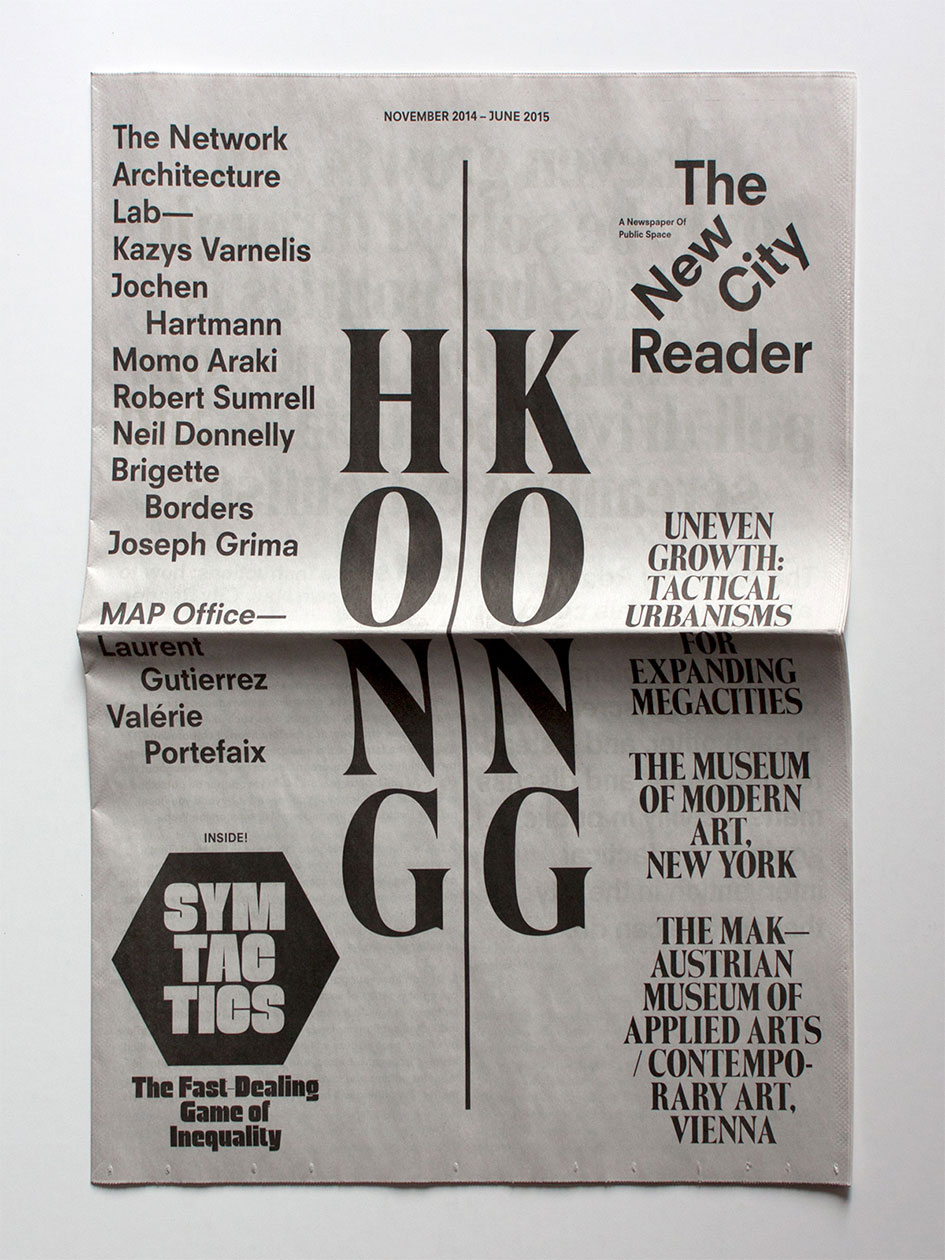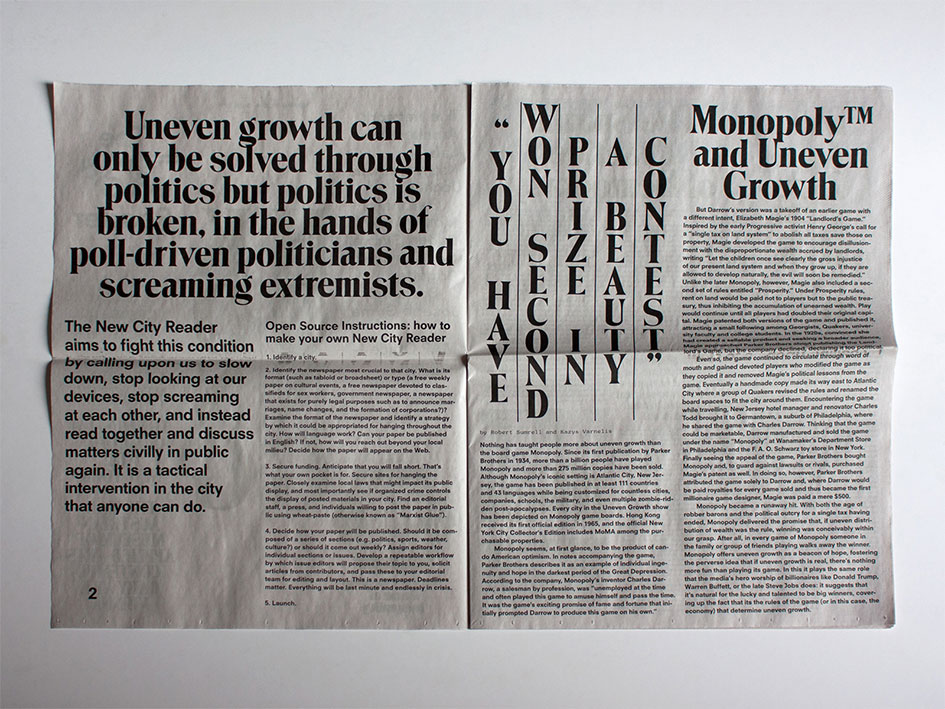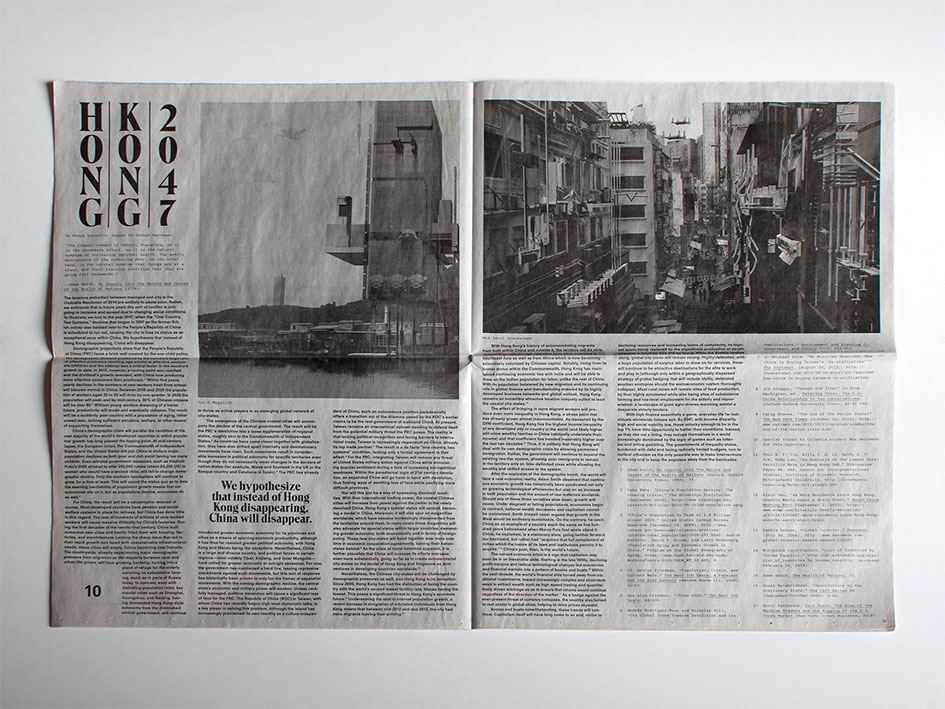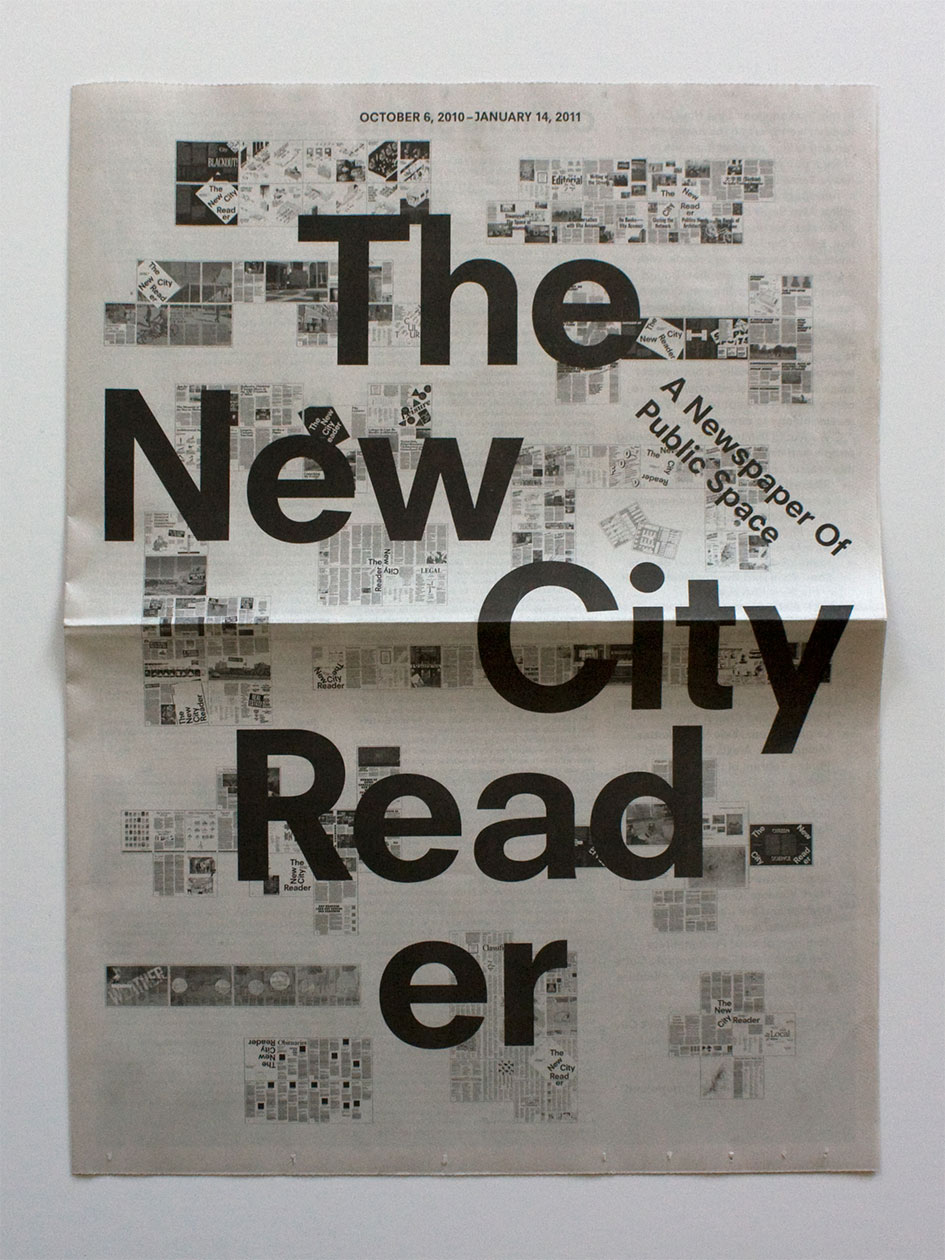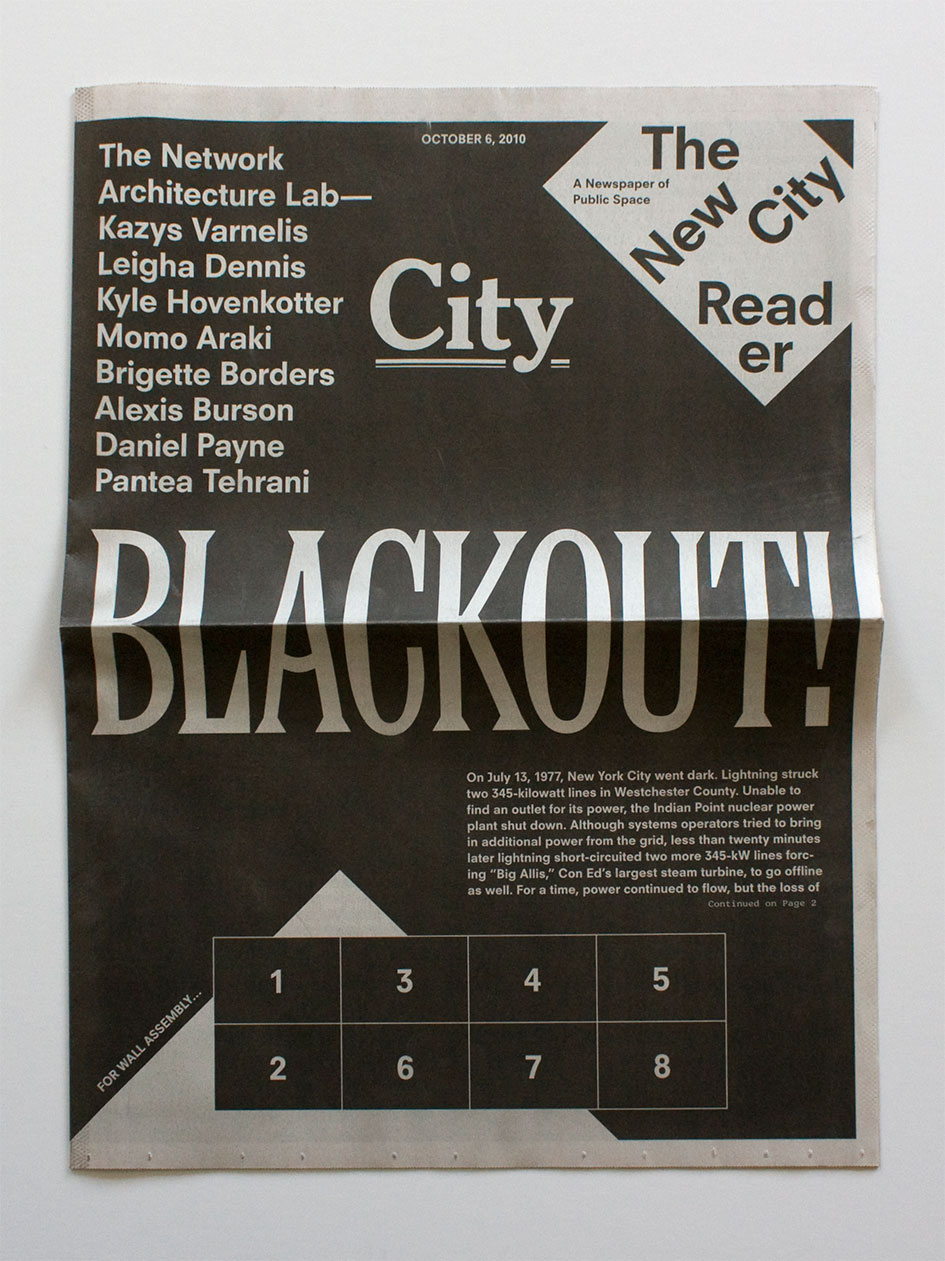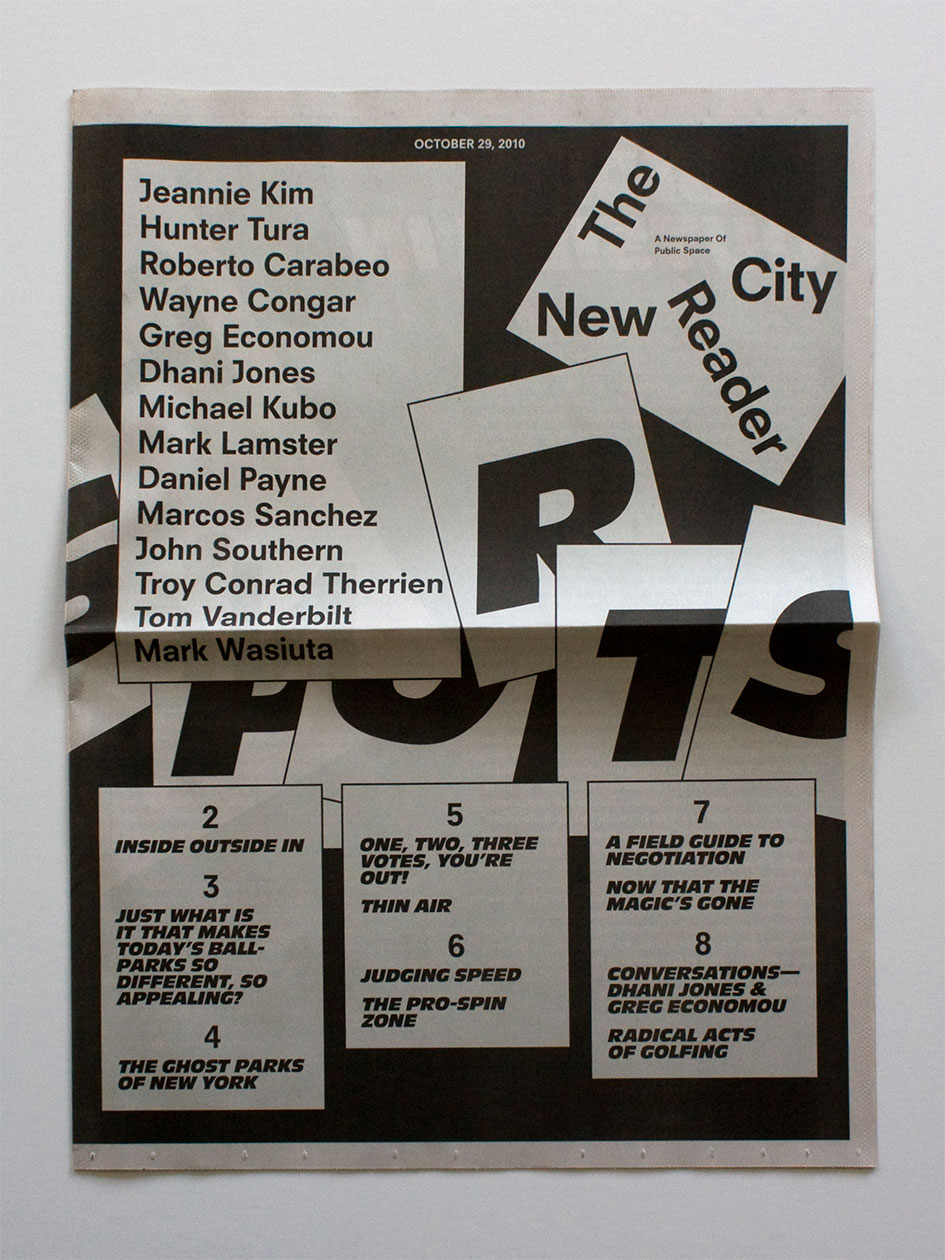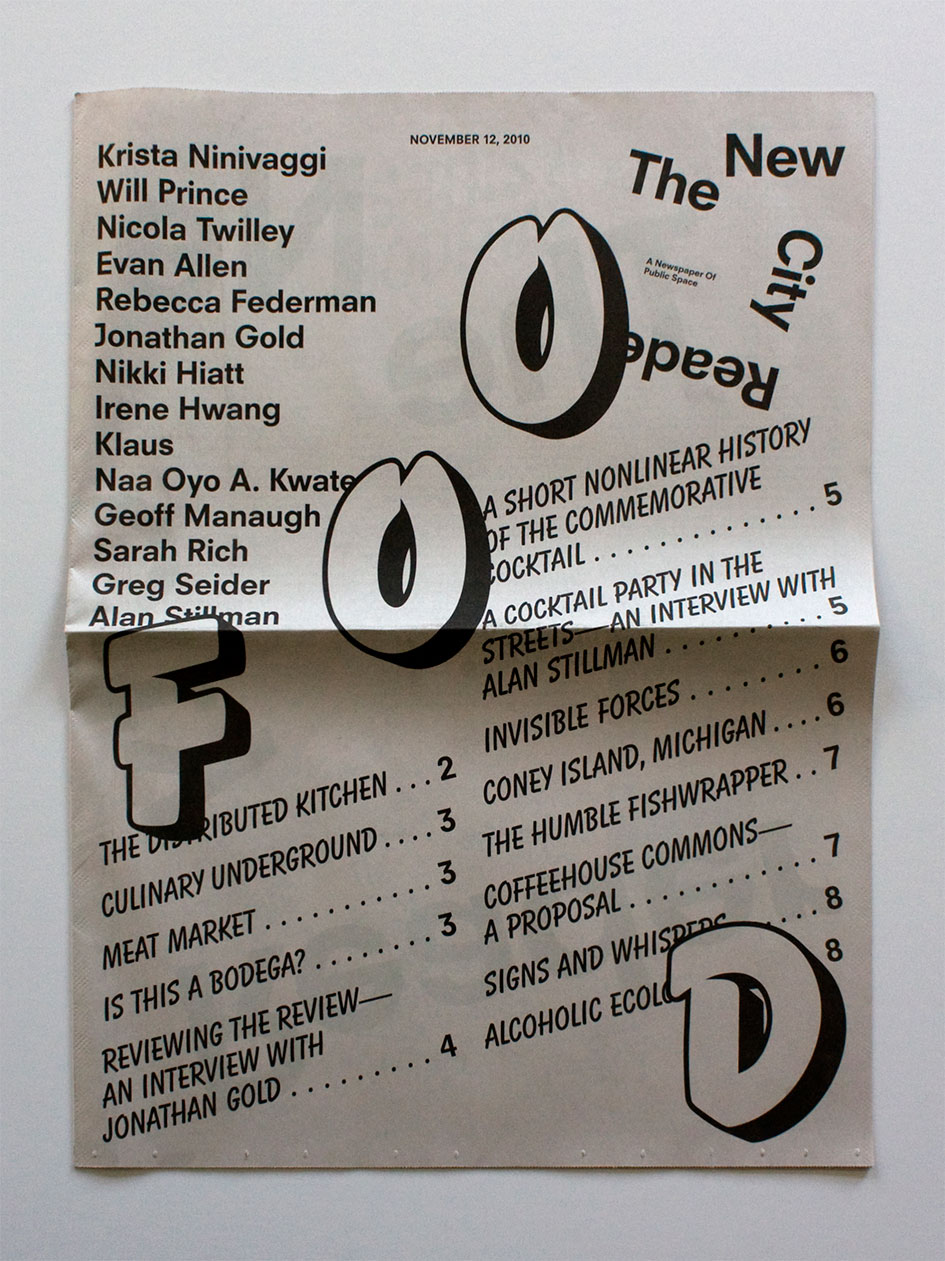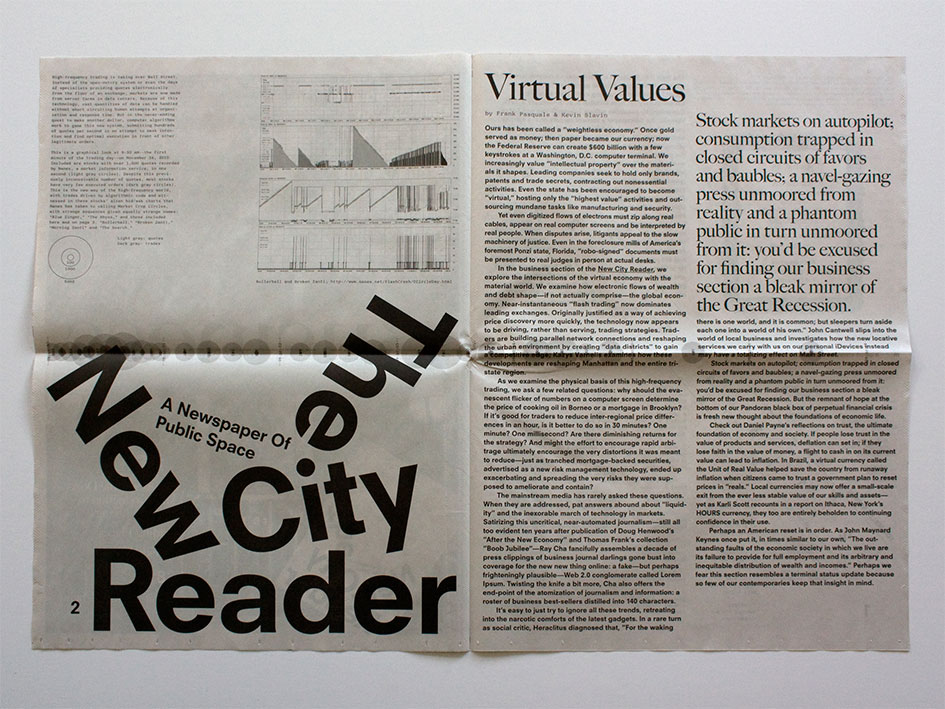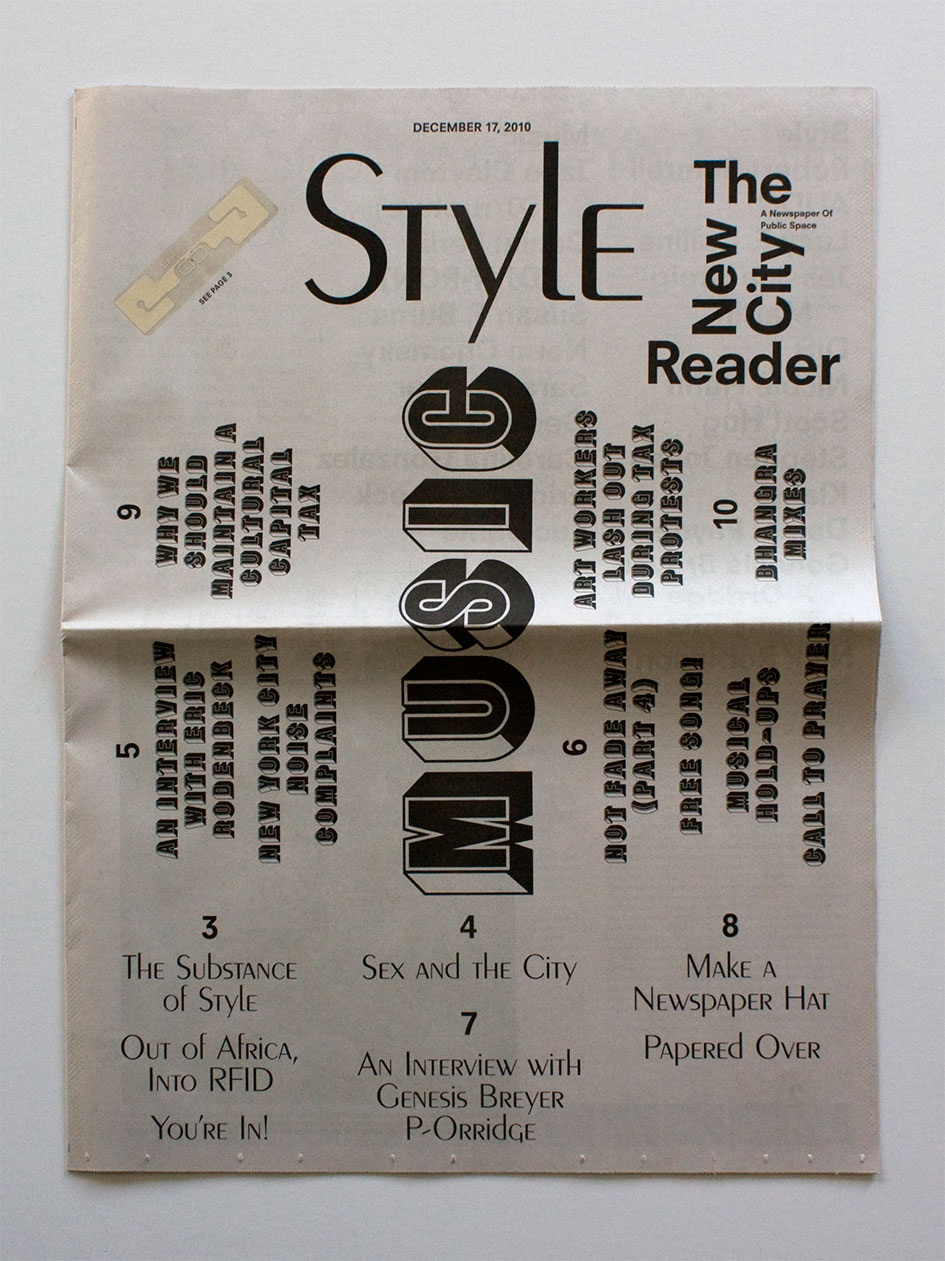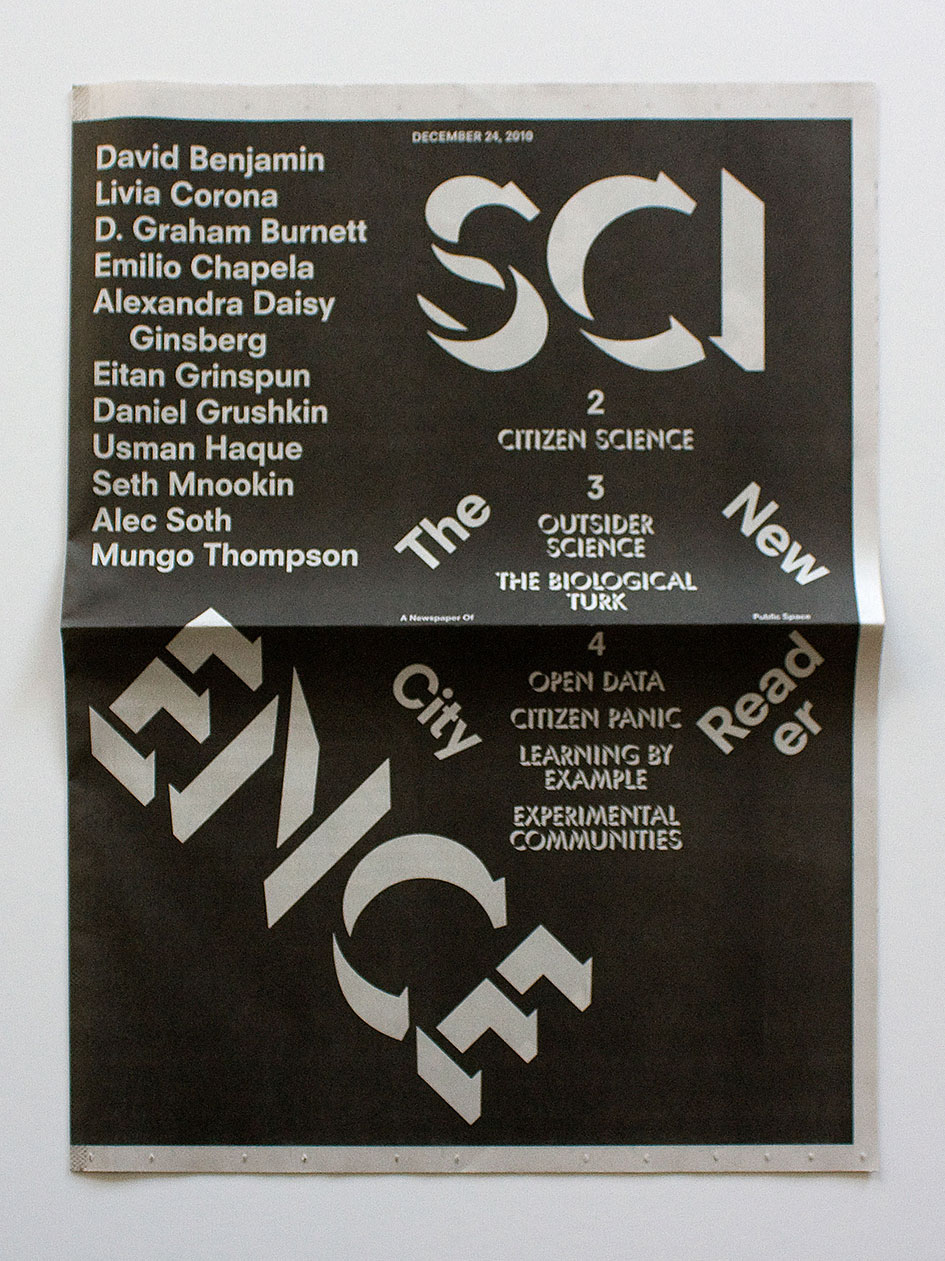
Neil Donnelly on his vision of a paper, The New City Reader
The New City Reader is a temporary newspaper on architecture and the city, designed to be read collectively on buildings and in other public spaces. The paper is, in fact, quite illegible when read folded and collated like a traditional newspaper—it is meant to be spread out and tiled together on a large, flat surface, as a kind of corrective to reader-customized news consumed privately on portable electronic devices. The New City Reader began as a component of an exhibition called “The Last Newspaper” at the New Museum, New York in 2010. The paper was written, art directed, designed, and published from a gallery within the museum, among the rest of the work in the show and visitors there to see it. Every week over the course of the exhibition, a new publication corresponding to one of the sections of a conventional newspaper investigated the relationship among the theme and contemporary urbanity—news, politics, sports, and food, among others. Each section was edited by a different team invited by editors-in-chief Joseph Grima and Kazys Varnelis, requiring close and rapid collaboration with both the guests and the in-house team.”
“An extremely lean budget also meant that all issues could only be printed in black, providing a production constraint that helped to sharply focus the paper’s aesthetic—strong body typography (Neuzeit S and Souvenir Mono) that can be read easily in the street at a distance, set in a strict but flexible grid (for the sake of design and production expediency), augmented by a different display typeface for each section inspired by and expressive of each section’s theme. In the paper’s brief initial run of three months, more than 180 leading architects, historians, and theorists analyzed the relationship of architecture, the newspaper, and the city.”
“The New City Reader was reprised in 2014 as Varnelis and the Network Architecture Lab’s contribution to the Uneven Growth exhibition at the Museum of Modern Art, New York, and the Museum of Applied Arts, Vienna. The paper contains explorations and critical views of Hong Kong present and future, and Symtactics: The Fast-Dealing Game of Inequality, a board game allowing players to act as tactical urbanists in a dystopian 2047 Hong Kong.”
“The display type in this issue is Troover, which is heavily indebted to Trooper, a Vector Graphics Corporation typeface from the late 1960s. It also bears more than a passing resemblance to the title typeface of the South China Morning Post, one of Hong Kong’s leading English-language daily newspapers. It is stacked as a reference to Hong Kong’s density and verticality, and also because type in Hong Kong is still often set this way, as opposed to mainland China where it’s typically left-to-right. Generally, the display type of the New City Reader is meant to draw on historical (or in some cases outmoded) styles as a self-conscious, tongue-in-cheek comment on the status of news in print, though the goal is also to deploy old typefaces in a way that seems fresh, surprising, and relevant to the paper’s content.”
“An extremely lean budget also meant that all issues could only be printed in black, providing a production constraint that helped to sharply focus the paper’s aesthetic”
“The display type of the New City Reader is meant to draw on historical styles, though the goal is also to deploy old typefaces in a way that seems fresh, surprising, and relevant to the paper’s content”